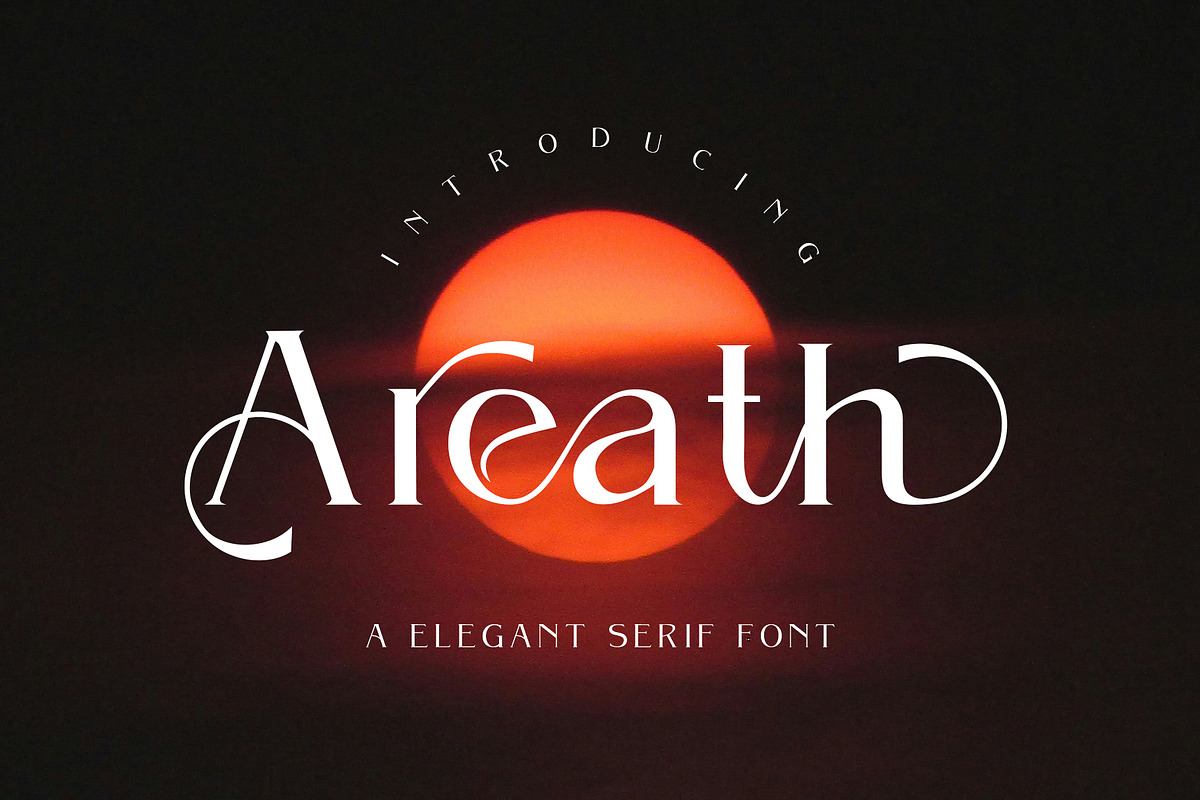
Areath - Elegant Serif Font Free Download is a refined and timeless serif typeface designed with sophistication in mind. With its high contrast letterforms, clean lines, and graceful serifs, Areath is perfect for luxury branding, editorial layouts, wedding invitations, product packaging, and other high-end projects. Its elegant design ensures that your typography looks polished and professional across various applications.
Using the Areath - Elegant Serif Font Free Download adds a touch of class and timeless beauty to your designs. Whether you're working on a chic logo, an editorial spread, or elegant marketing materials, this font brings an air of prestige and style to your work.